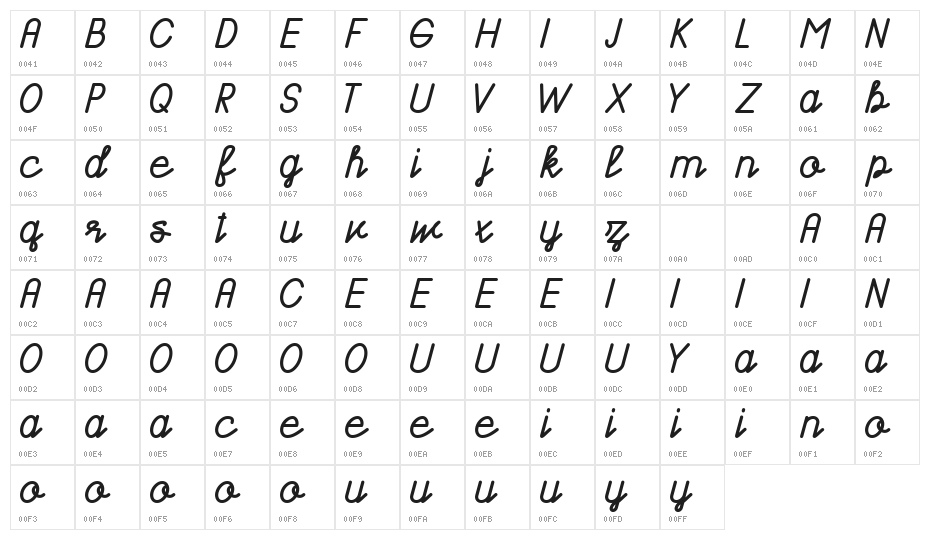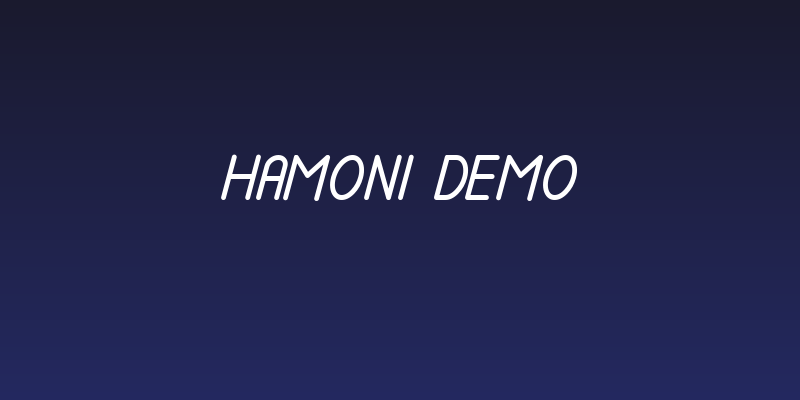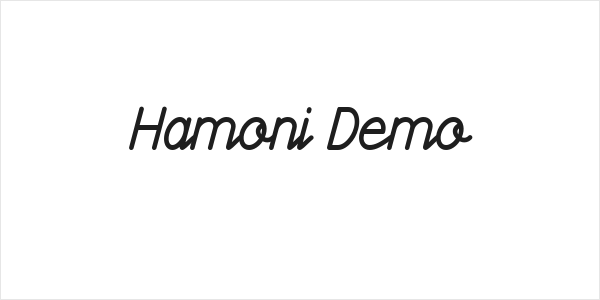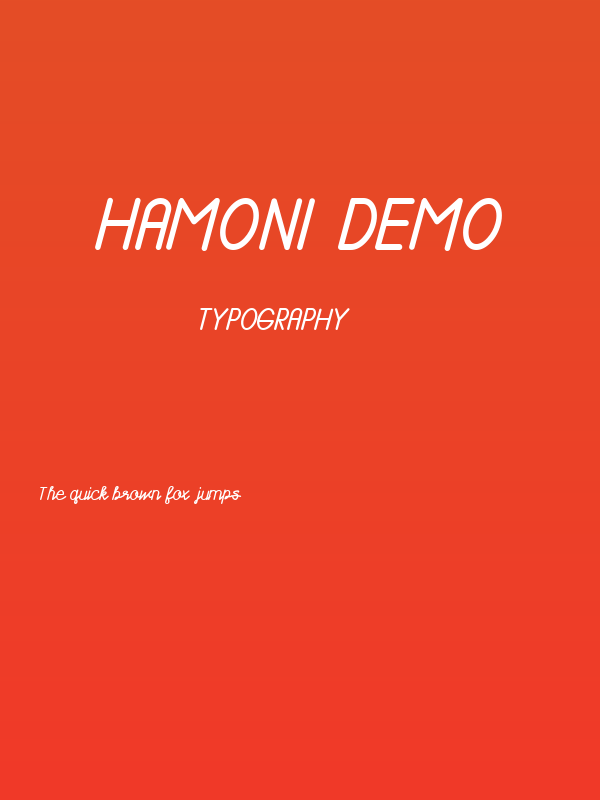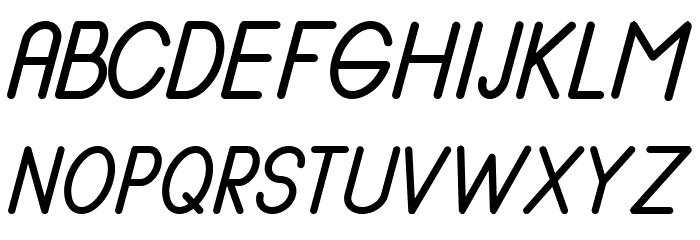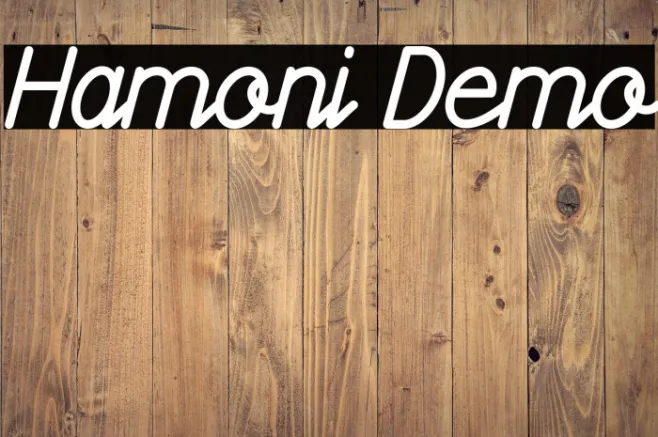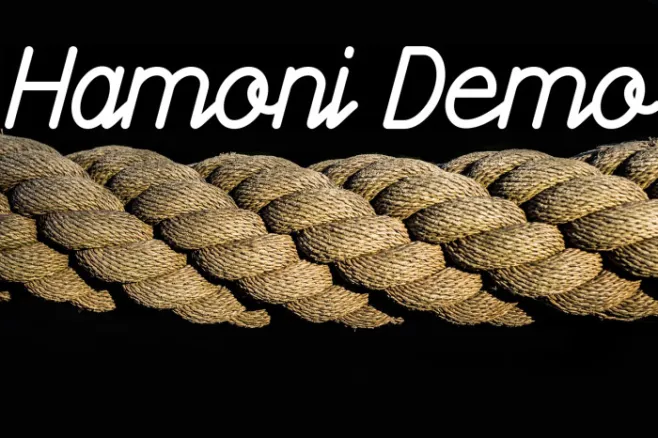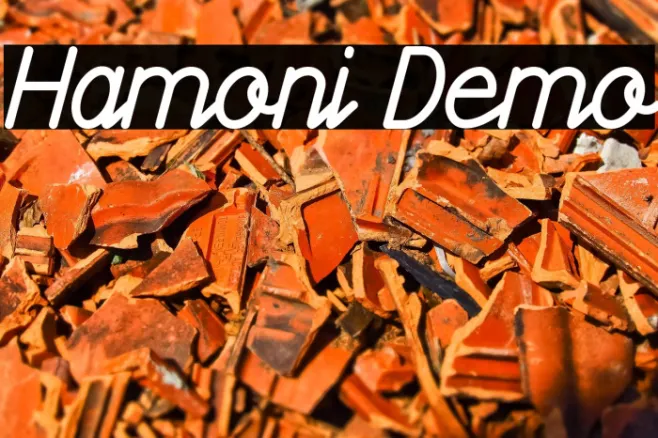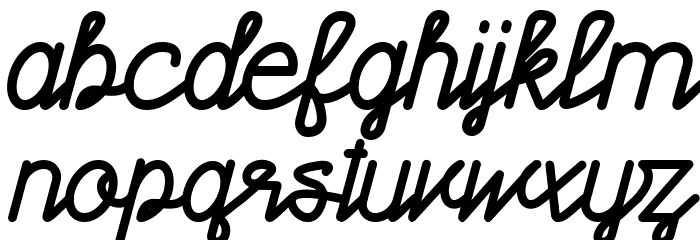
Hamoni Demo Font
Hamoni Demo Description
This font features a modern, cursive style with a smooth, flowing appearance. The uppercase letters are elegantly crafted with a consistent stroke width, giving them a sleek and polished look. The lowercase letters maintain a similar fluidity, with some characters connecting seamlessly to others, enhancing the script-like quality. The numbers and special characters are designed to match the overall aesthetic, ensuring a cohesive appearance across all text elements. This font's design is both stylish and legible, making it suitable for various applications where a touch of elegance is desired.
| Use Case | Logos, Invitations, Social Media Graphics |
| Proposed Projects | Ideal for wedding invitations, elegant branding, personal signatures, and stylish social media graphics. |